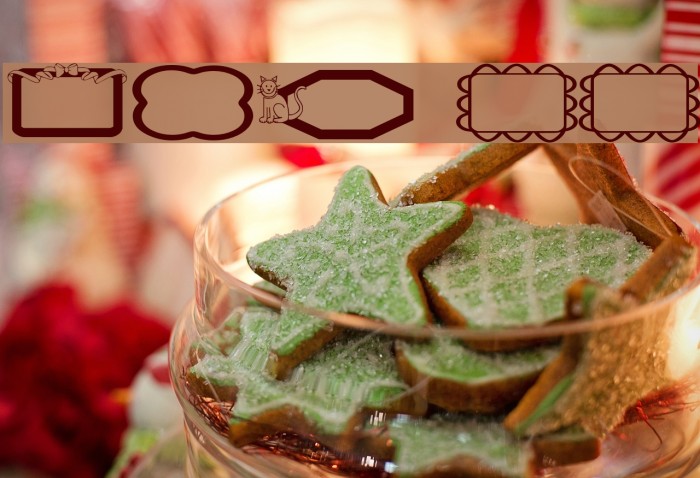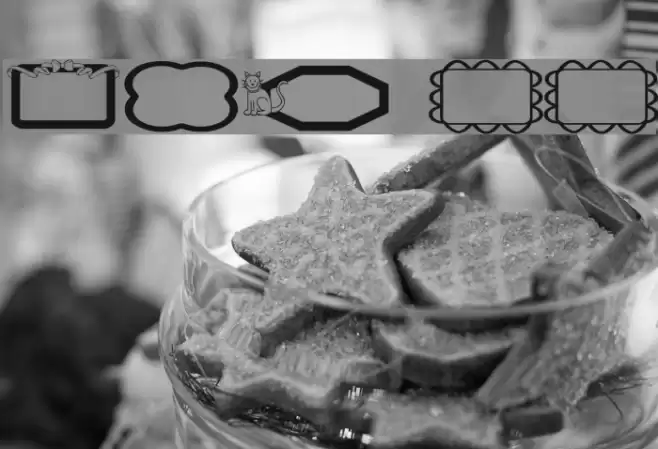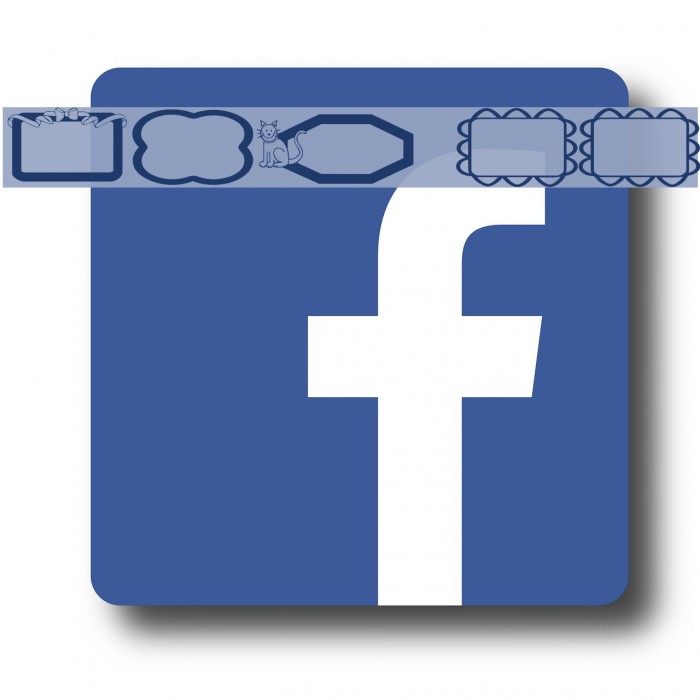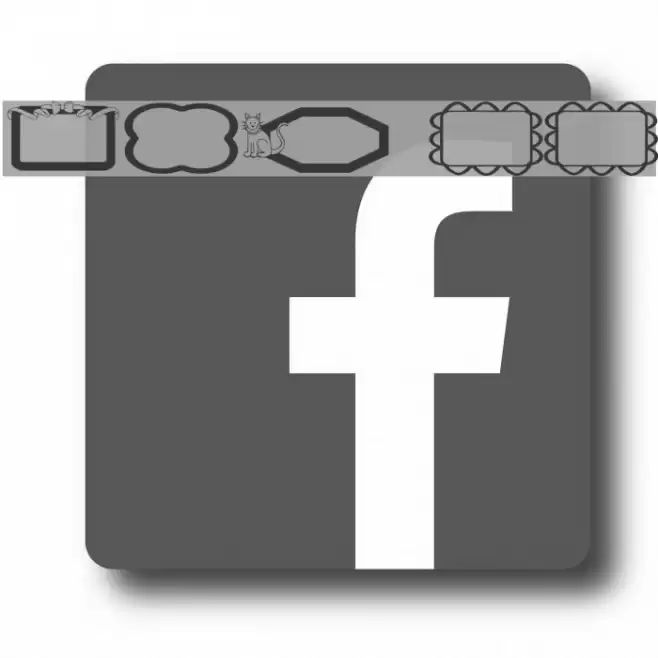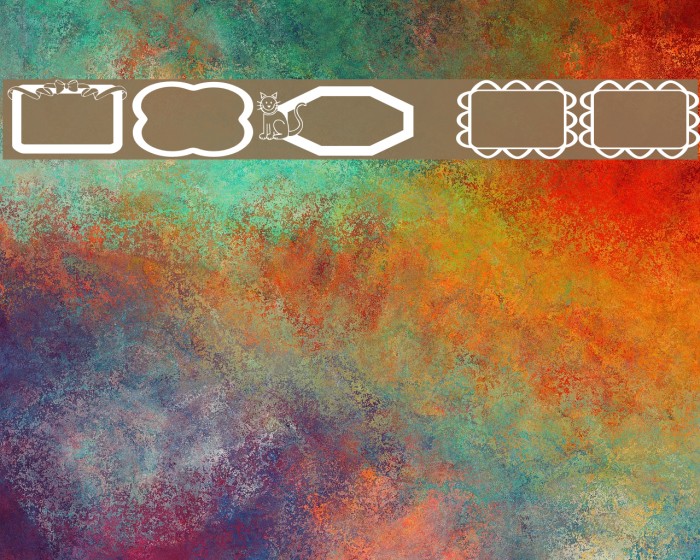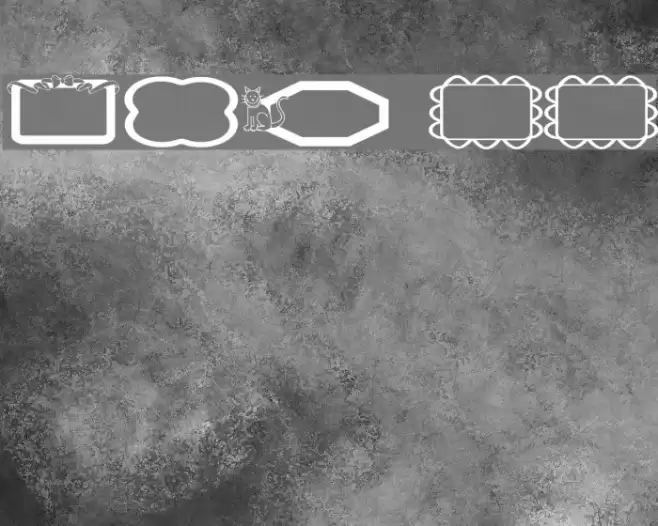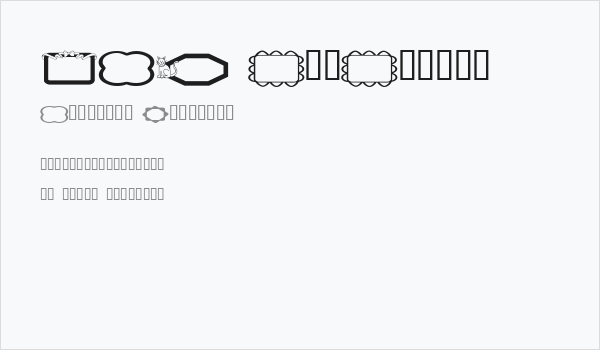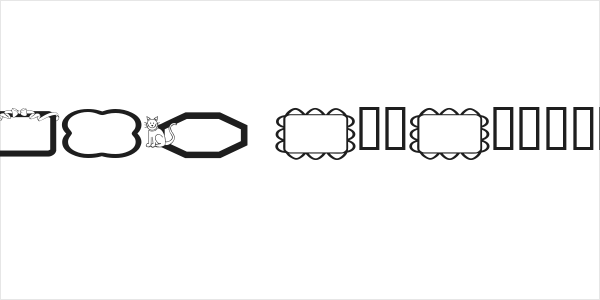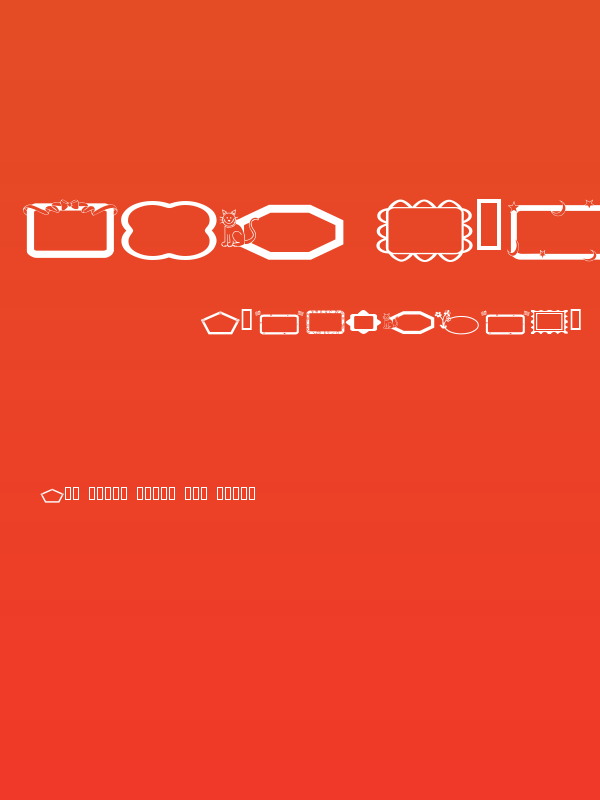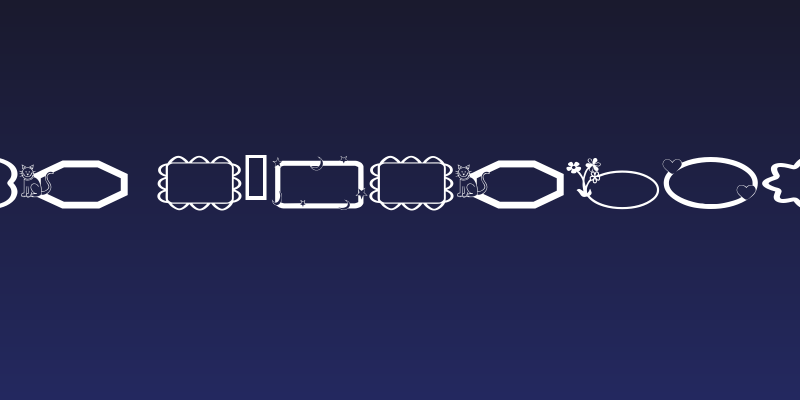
LCR FunFrames Font
LCR FunFrames Description
A decorative dingbat font featuring a variety of outlined frames and borders in different shapes, including rectangles, ovals, and ornate designs, some with floral embellishments. The glyphs are primarily empty frames, suitable for use as design elements or placeholders.
| Use Case | Design elements, borders, frames, scrapbooking, labels. |
| Proposed Projects | Scrapbooking, invitations, certificates, labels, digital planners, decorative borders. |